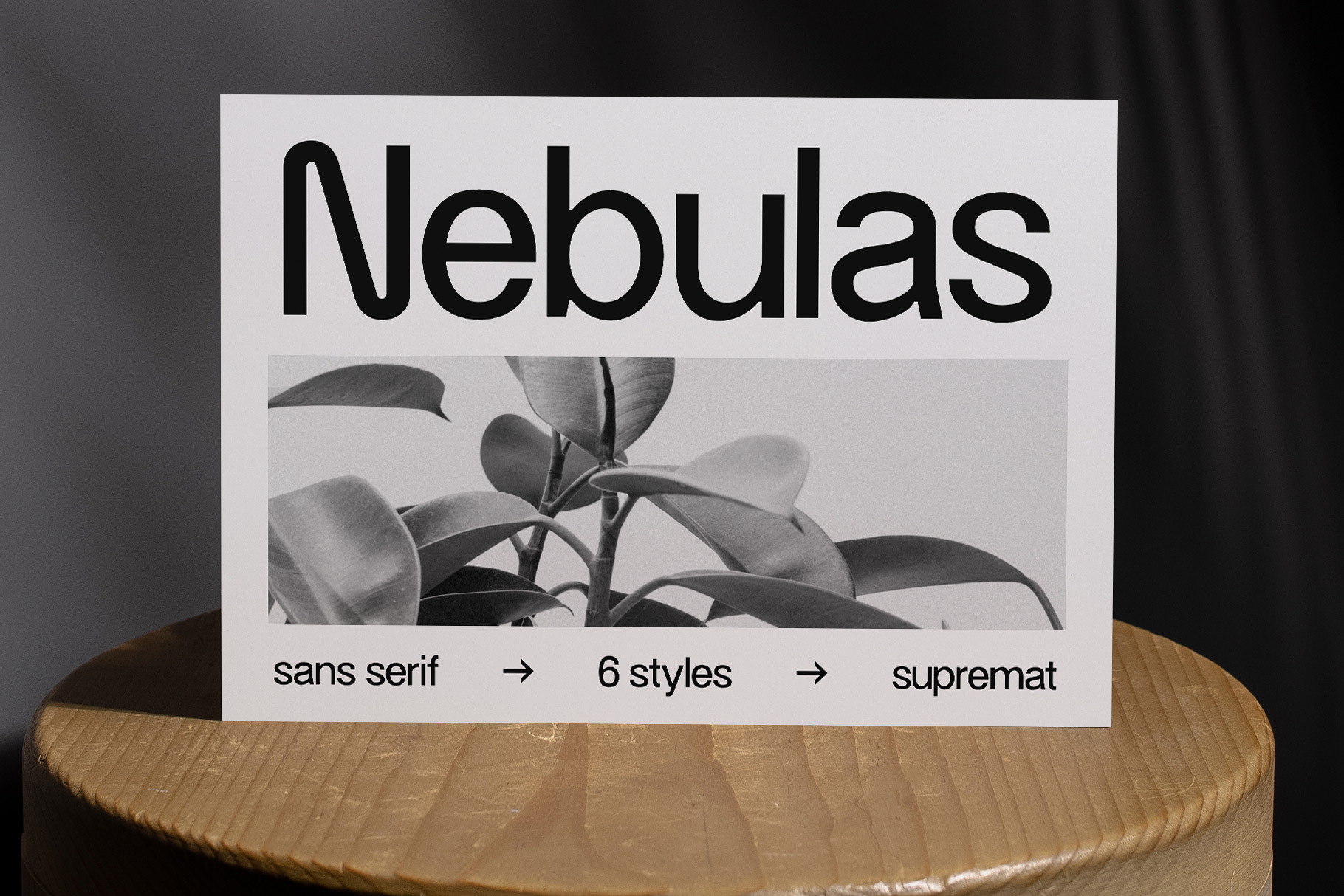
A simple and elegant sans serif font inspired by the legendary Helvetica and Univers. Perfect for minimalist, modern typography. The font has a dense enough kerning that it's perfect for large and medium-sized headlines. The highlight of the font is the letters N and K, adding some spacey vibe to the design.